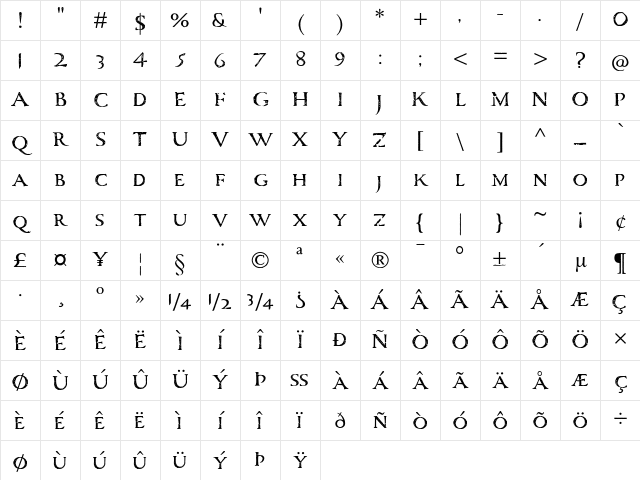
Carta Marina Regular Free Font
Carta Marina Regular
Foundry: Jeremy Dooley
Complete Carta Marina Regular glyph index. Displaying only characters natively supported by Carta Marina Regular font.
Design Context for Carta Marina
Carta Marina is a composed and adaptable typeface that performs quietly and consistently across a wide range of design contexts.
Who designed the Carta Marina Regular font?
This font was published by Jeremy Dooley. Check the technical specs section for copyright and designer details.